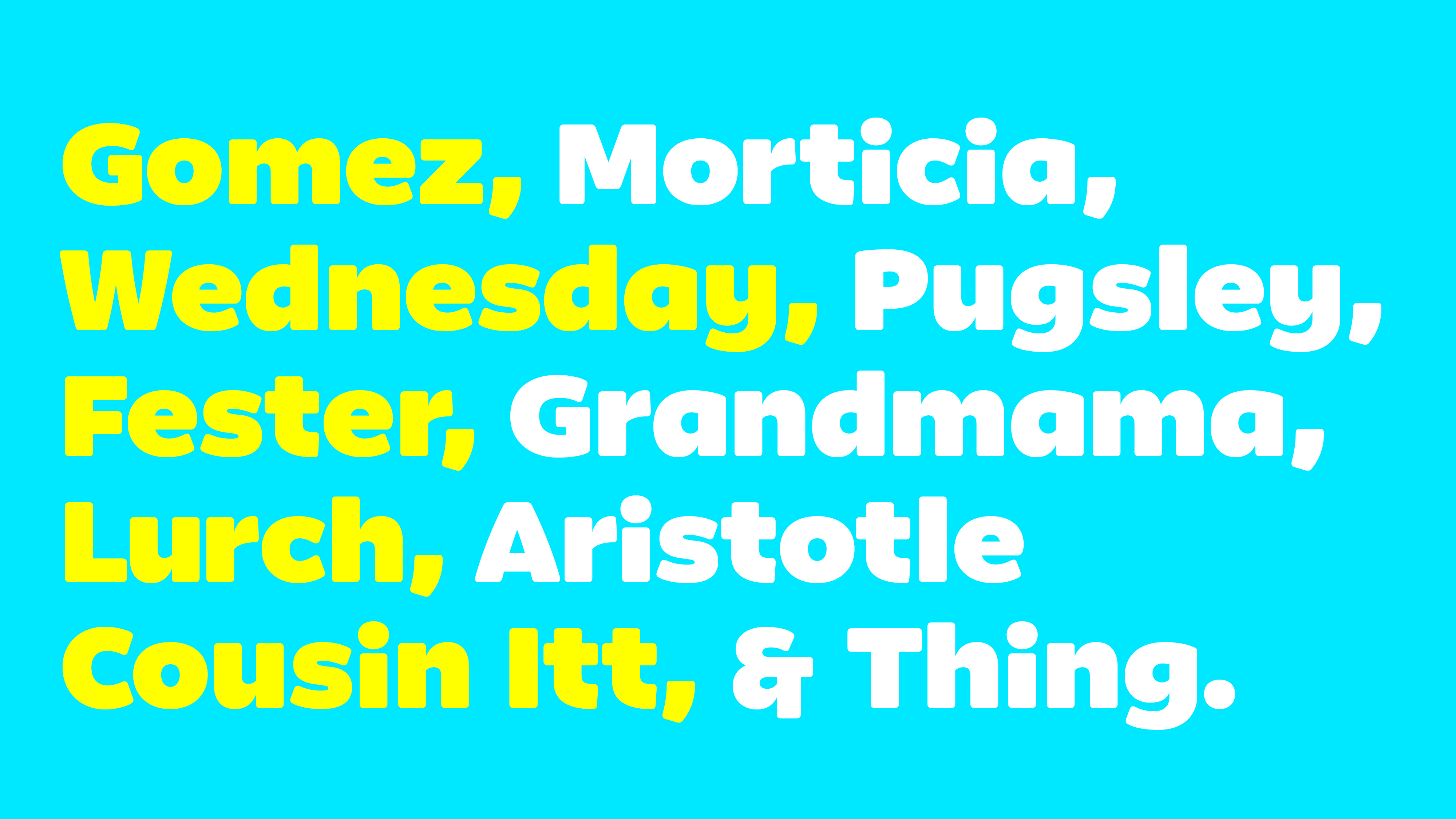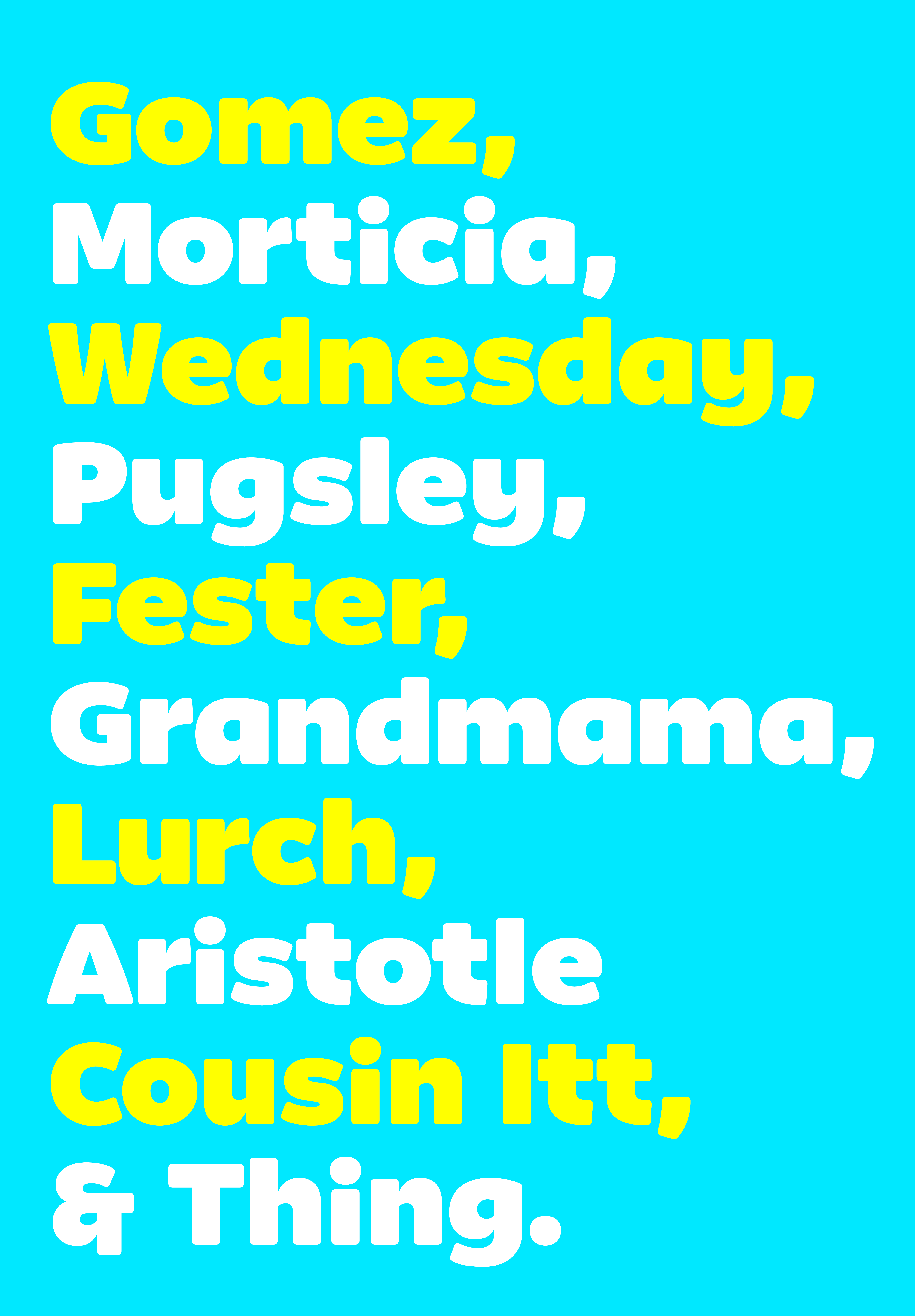
F37 Kookie®
Soft, round and cuddly, F37 Kookie is the friendliest font imaginable. If you’re after a font with no hard edges whatsoever, look no further.